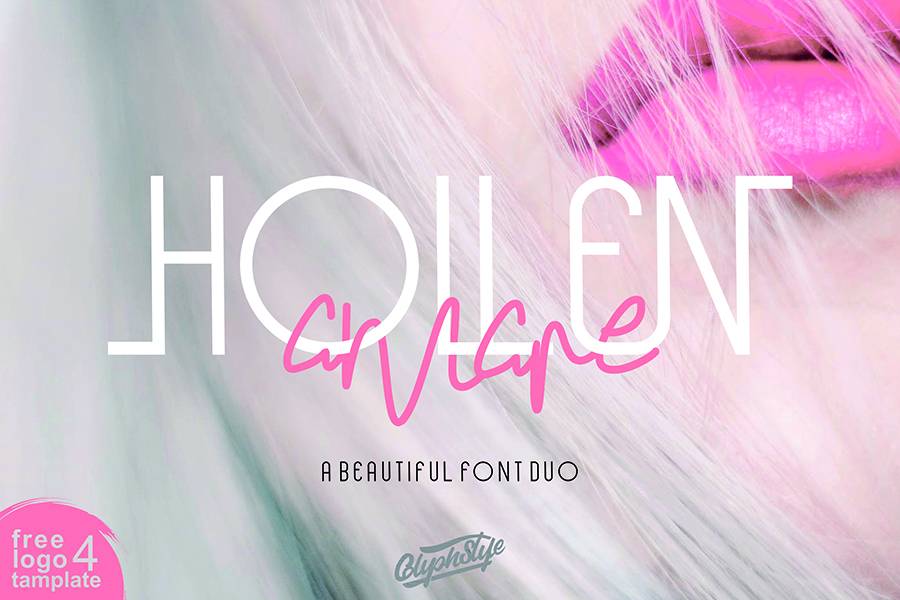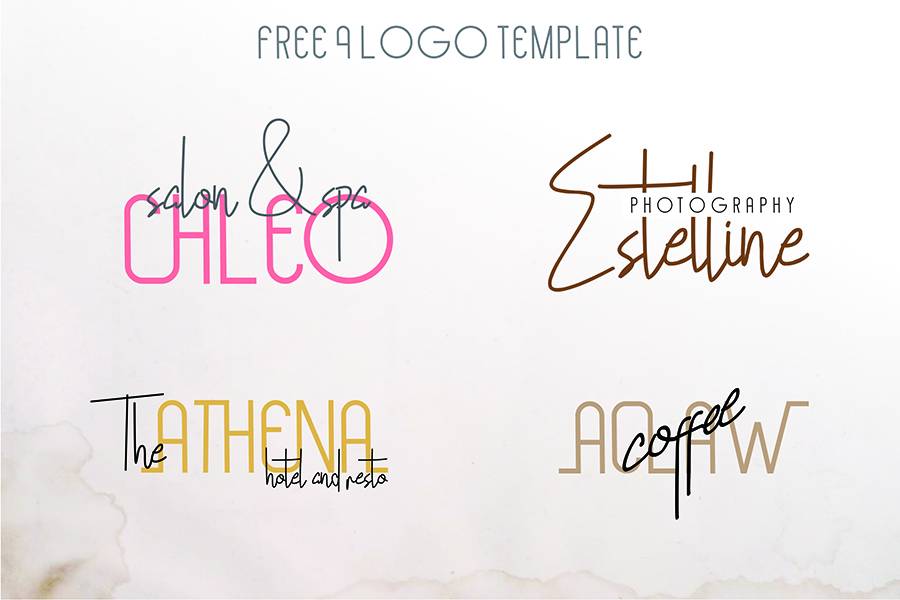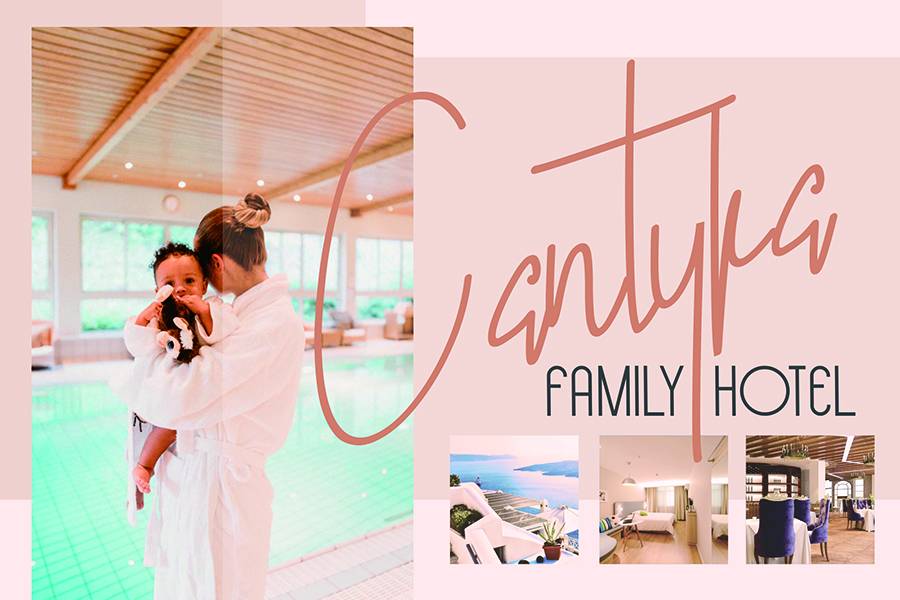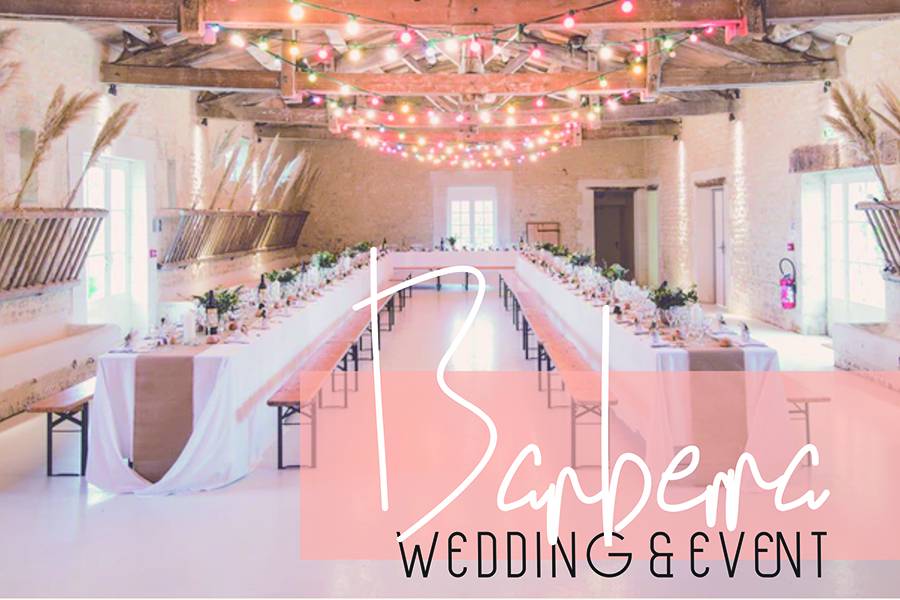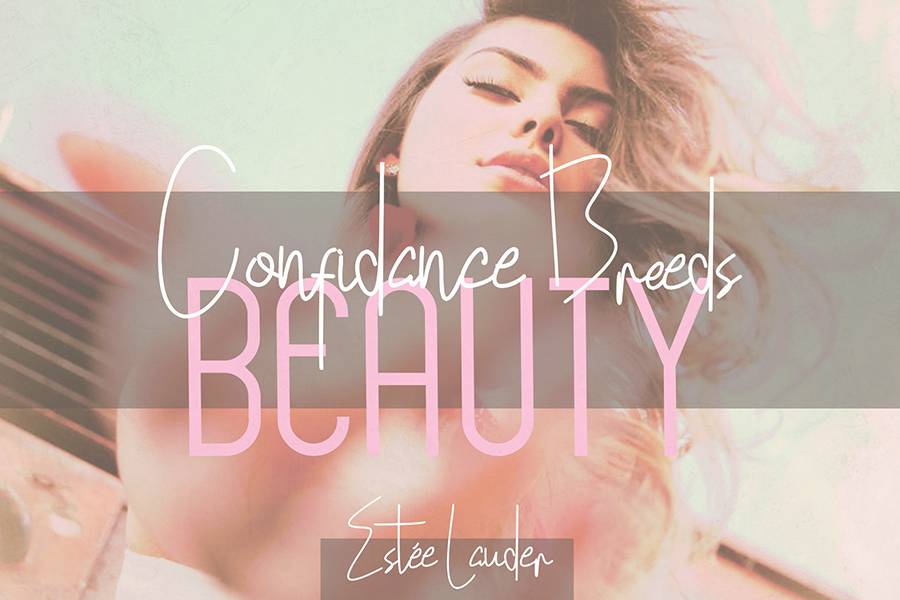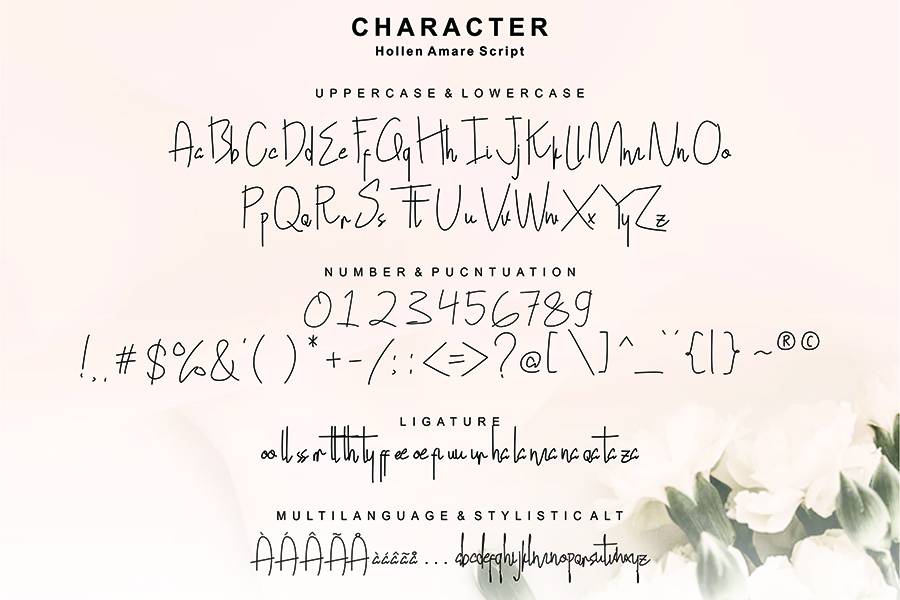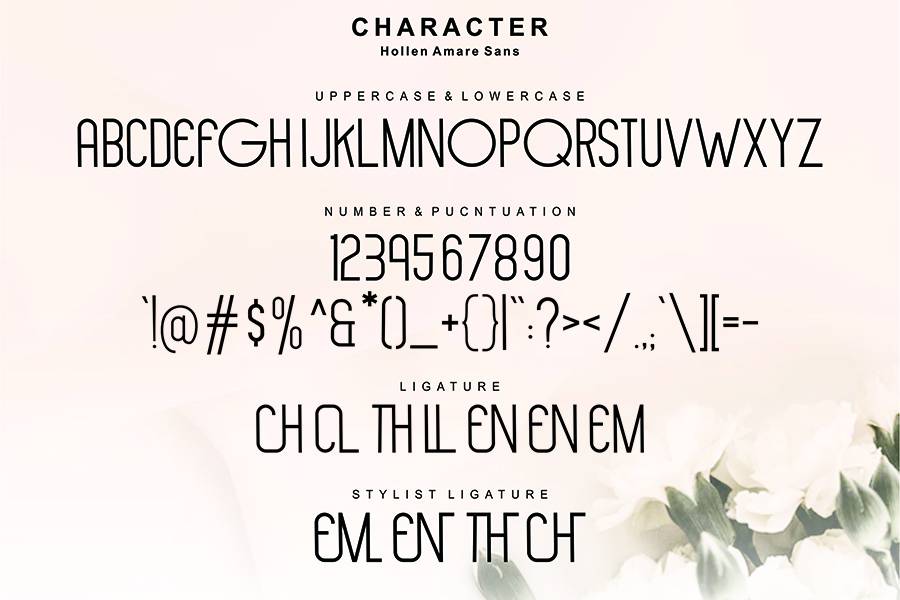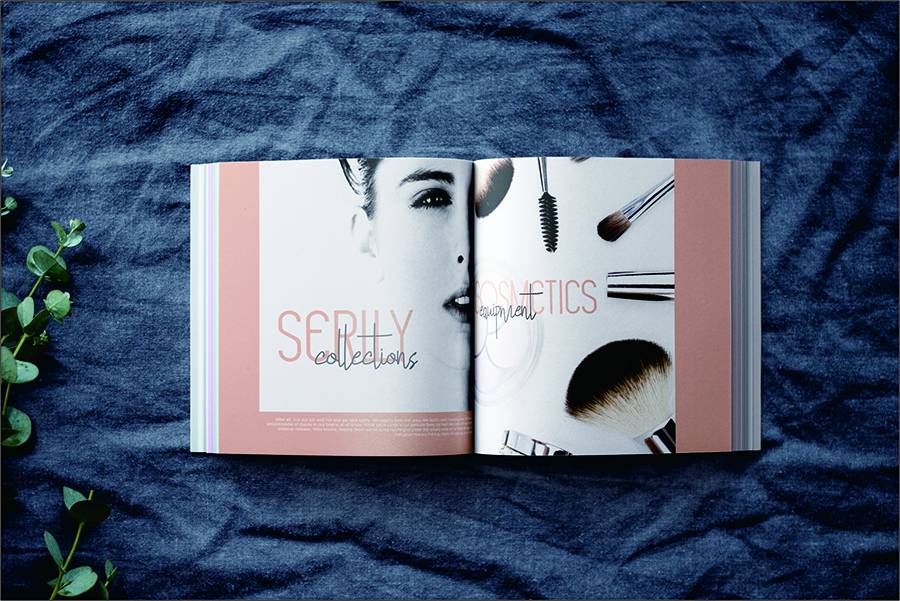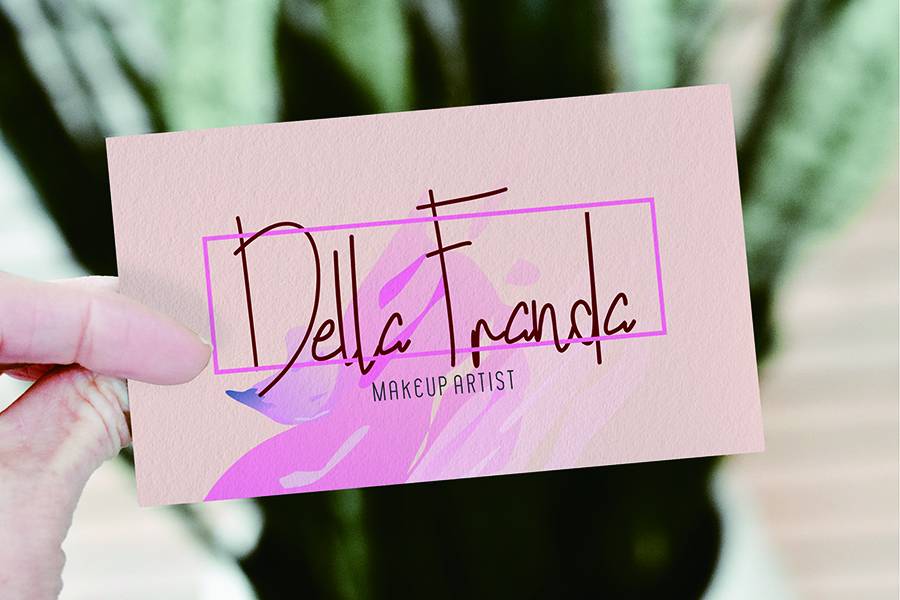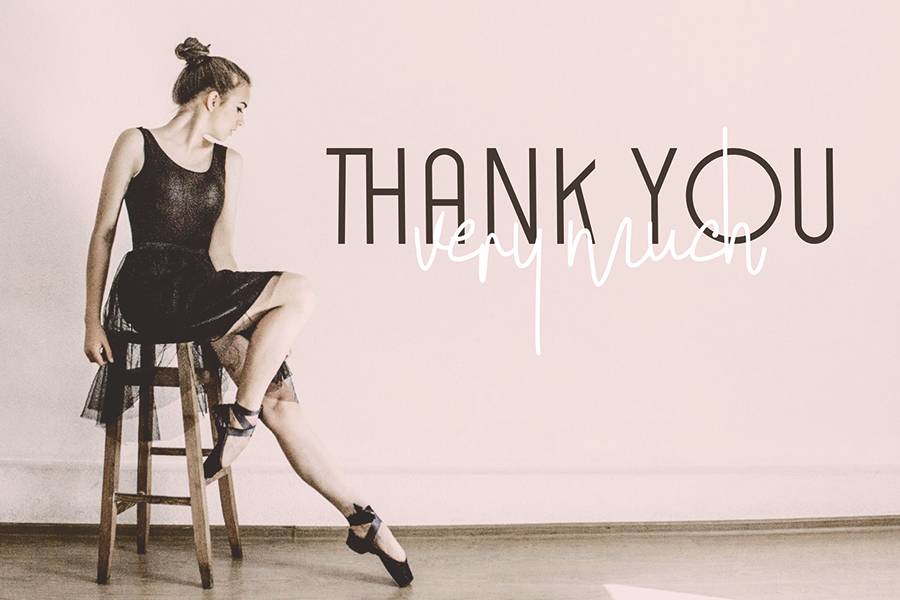
Hollen Amare Font Duo is a sleek, tall sans serif typeface with a narrow width and a clean, modern look. Its thin strokes and geometric letterforms create an elegant yet slightly playful feel, making it ideal for fashion-forward branding, trendy editorial designs, and stylish headlines. This font stands out for its unique character shapes, such as the rounded 'O' and distinctive uppercase letters, adding personality while maintaining readability.
Hollen Amare Font Duo
About Hollen Amare Font Duo
| Font family | Hollen Amare Font Duo |
| Release date | 2019-05-14 |
| Designer | GlyphStyle 2019 |